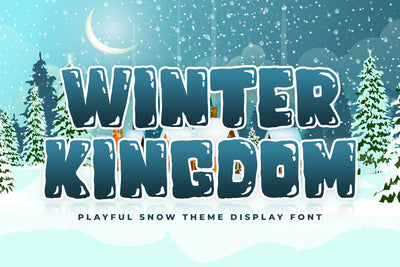
Winter Kingdom Font
Winter Kingdom is a beautiful display font. It features playful snow-themed characters that will add a great touch to your winter crafting projects. This enchanting font will turn any creative idea into a true standout and will add a unique feel to your upcoming projects.